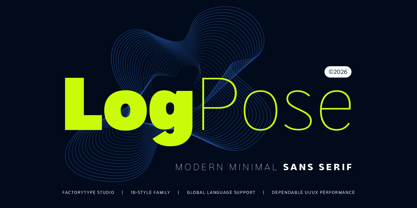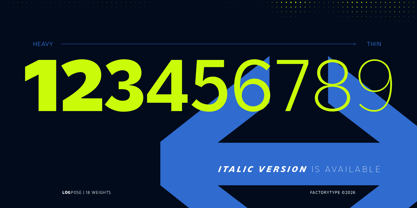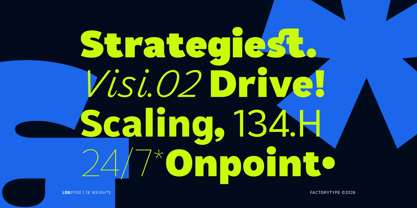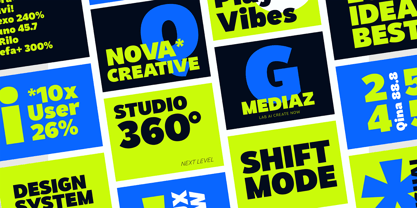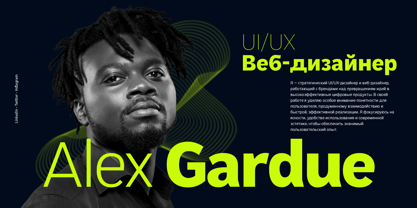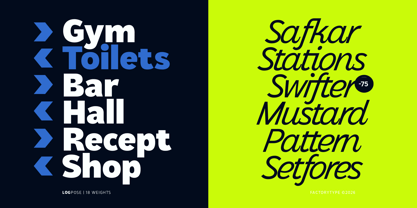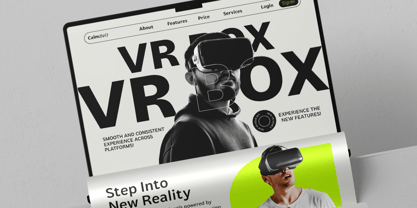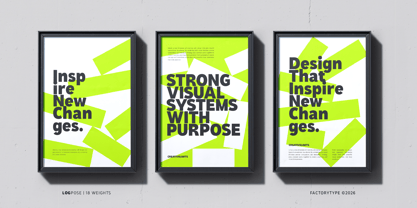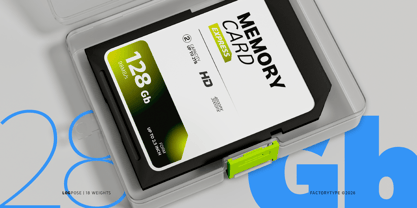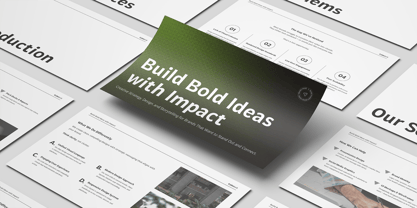
LogPose
The LogPose Font Family was designed by Wahyu Rahmawan and published by Factory738. LogPose contains 18 styles and family package options. More about this family
LogPose: A Versatile Geometric Sans Serif Family
LogPose is a clean and dependable geometric sans-serif family designed for clarity, balance, and modern professional systems. Drawing inspiration from the precision of architectural minimalism and future-ready digital aesthetics, LogPose embodies a calm, neutral tone that adapts effortlessly to any design environment.
We purposefully designed this typeface for creators who need a sincere and consistent visual voice. Whether you are building brand identities, corporate communication systems, or high-performance UI/UX designs, LogPose provides the sophisticated simplicity required for professional results.
Featuring a comprehensive library of 18 styles, LogPose offers a seamless spectrum of weights—from a light and airy Thin to a strong, impactful Heavy. With its minimal contrast and refined geometric construction, this family ensures exceptional readability across all platforms, making it a reliable tool for both subtle editorial layouts and bold corporate statements.
Main Features:
• 18 Total Styles: 9 weights (Thin to Heavy) with matching, expressive Italics.
• Refined Geometry: Engineered for flawless digital interaction and navigational clarity.
• Professional Character Set: Over 300+ essential Latin glyphs and refined symbols.
• Multilingual Support: Comprehensive support for 100+ Western and Central European languages.
• Versatile Performance: Optimized for web design, tech branding, corporate decks, and minimalist packaging.